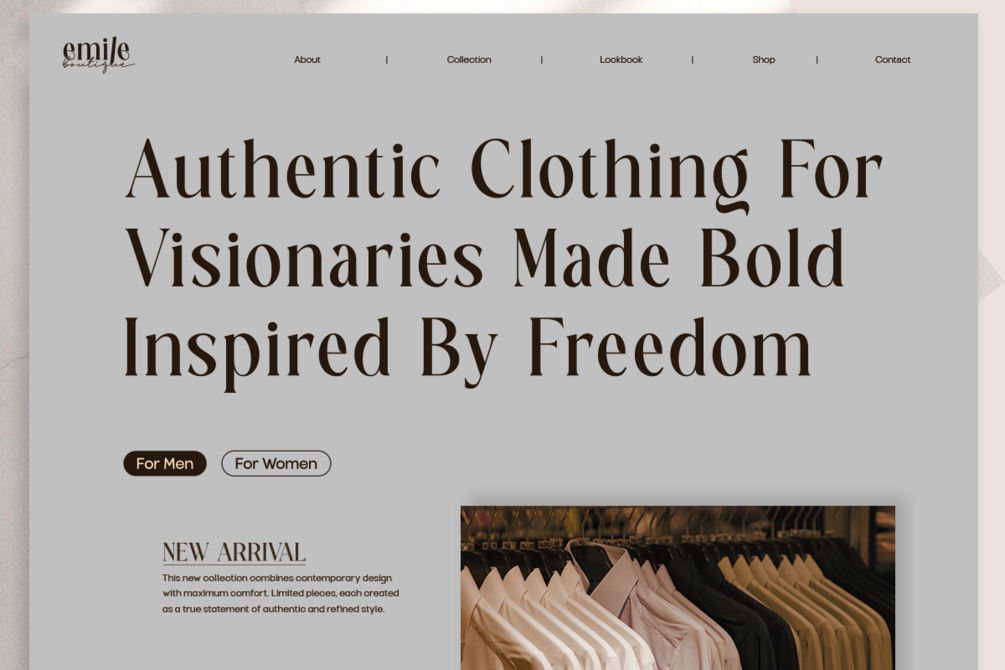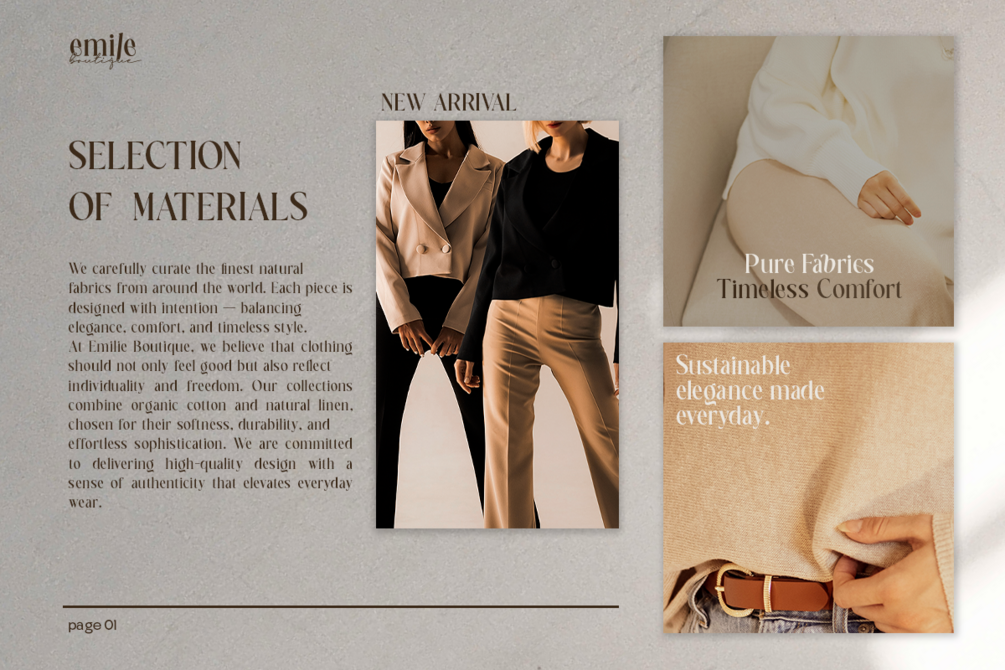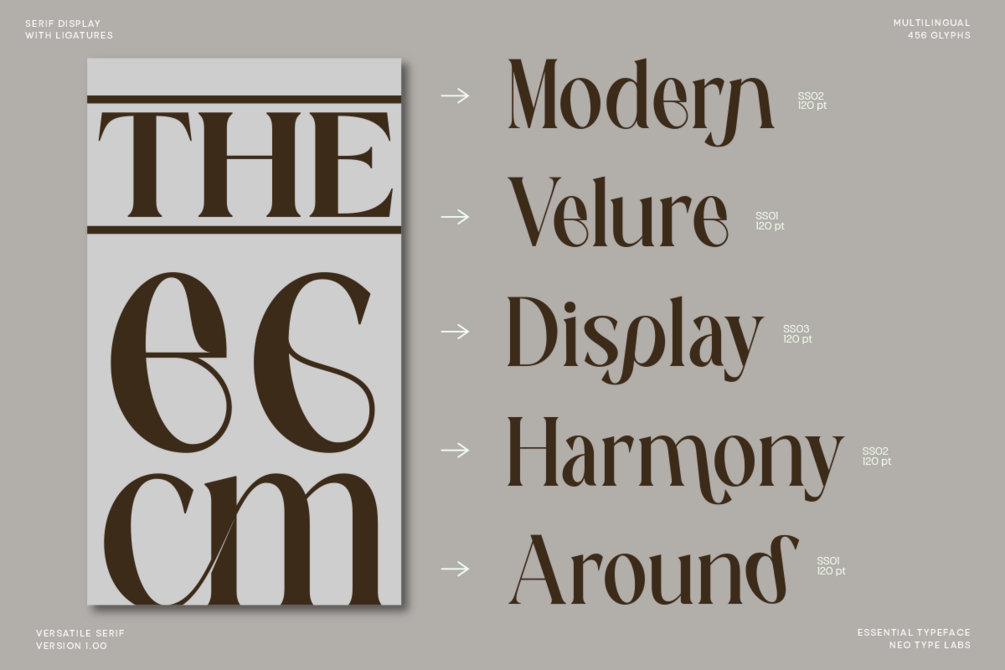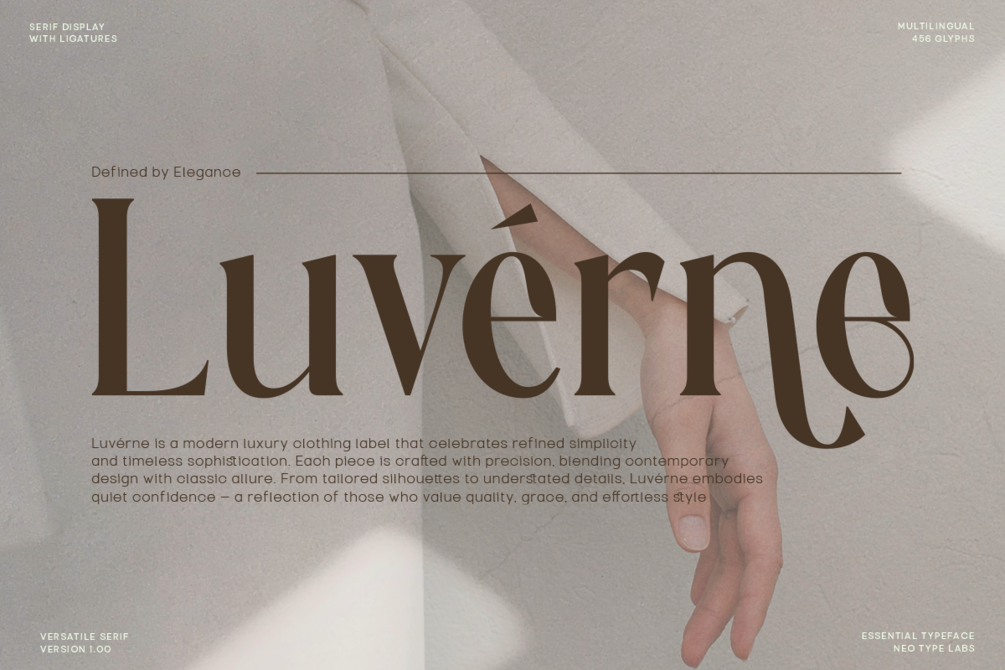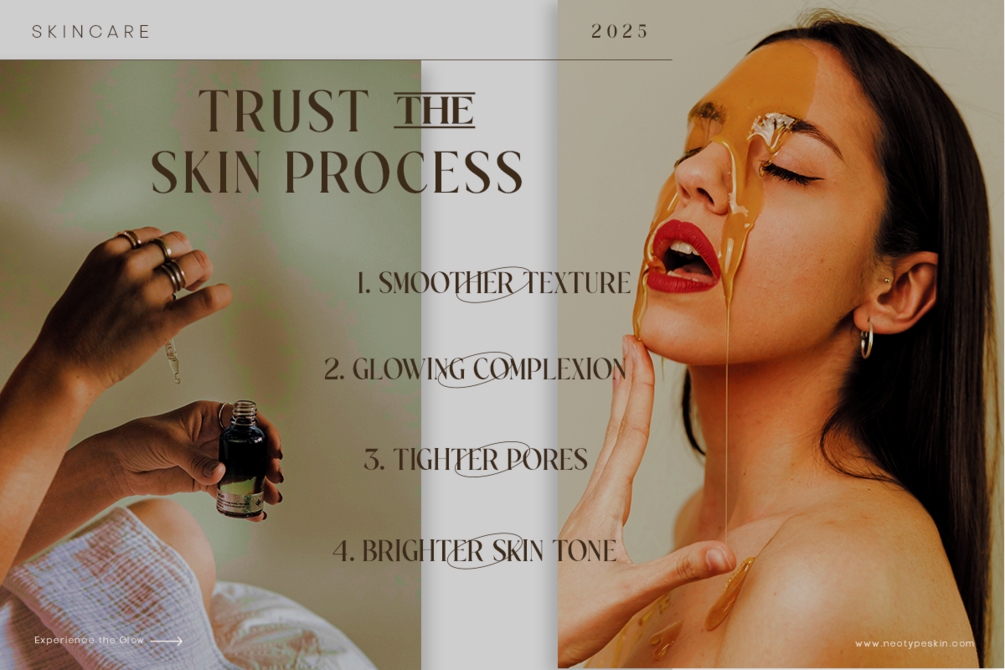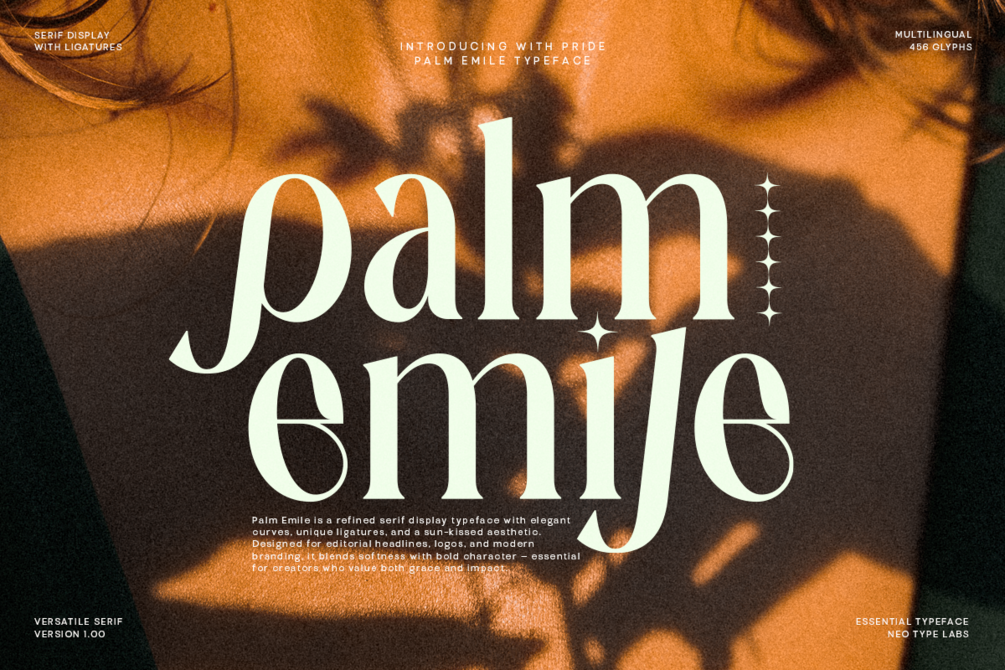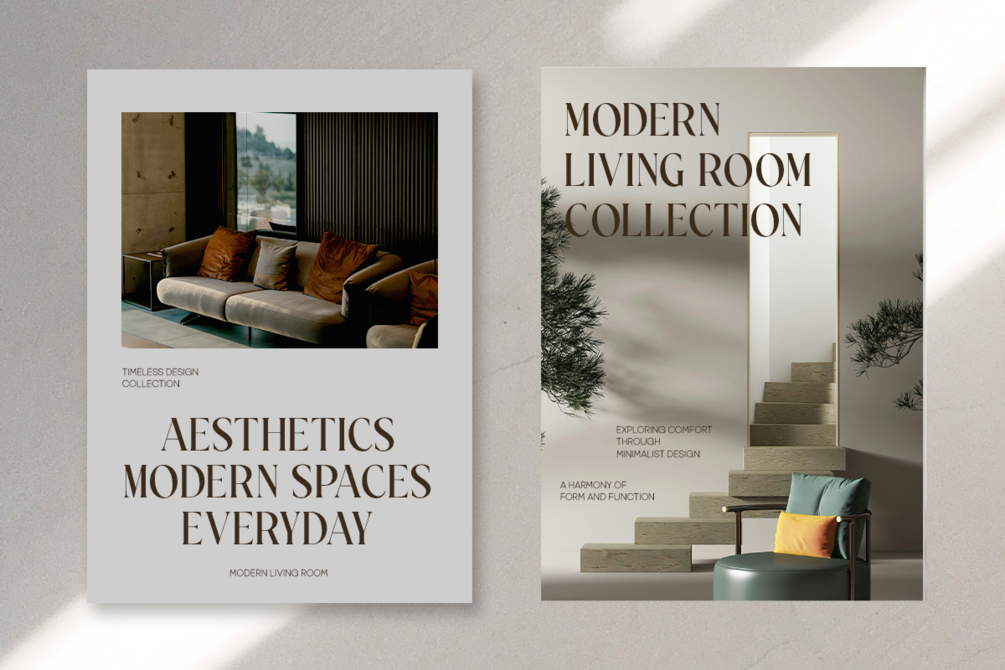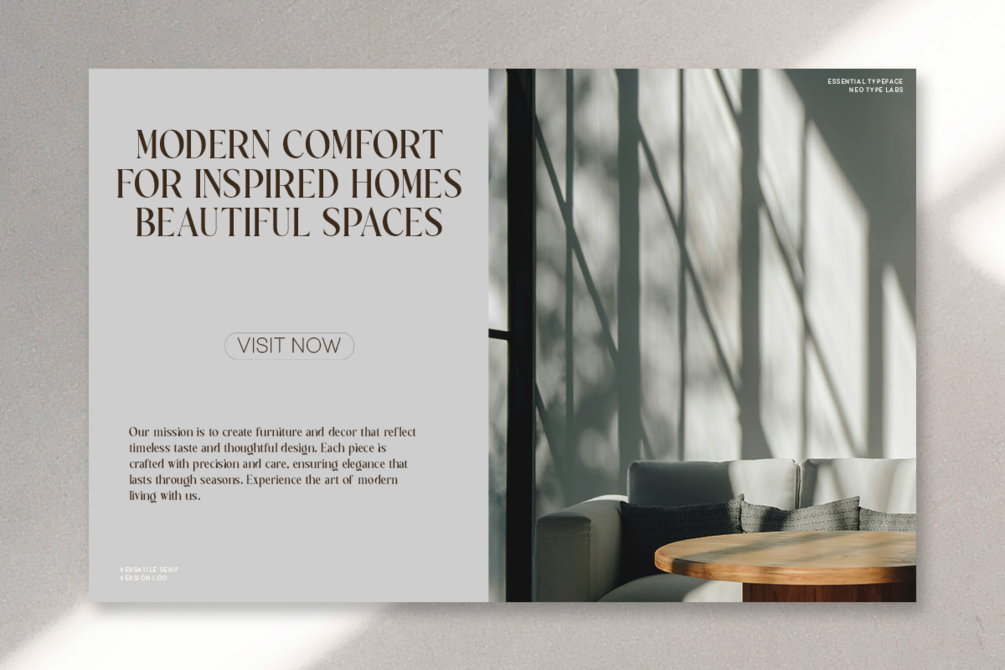
Palm Emile Serif Display
Palm Emile is a refined serif display typeface that blends classic sophistication with modern charm. Featuring elegant curves, unique ligatures, and a sun-kissed aesthetic, Palm Emile is designed to bring warmth and personality to your visual projects.
Perfect for editorial headlines, branding, logos, packaging, and poster design, this typeface offers a balance of bold presence and graceful detail. Each letterform was carefully crafted to evoke timeless elegance while maintaining a contemporary appeal.
With 456 multilingual glyphs and versatile alternates, Palm Emile allows creative freedom for designers who seek both luxury and individuality in their typography.
Alternates & Ligatures
Accented characters